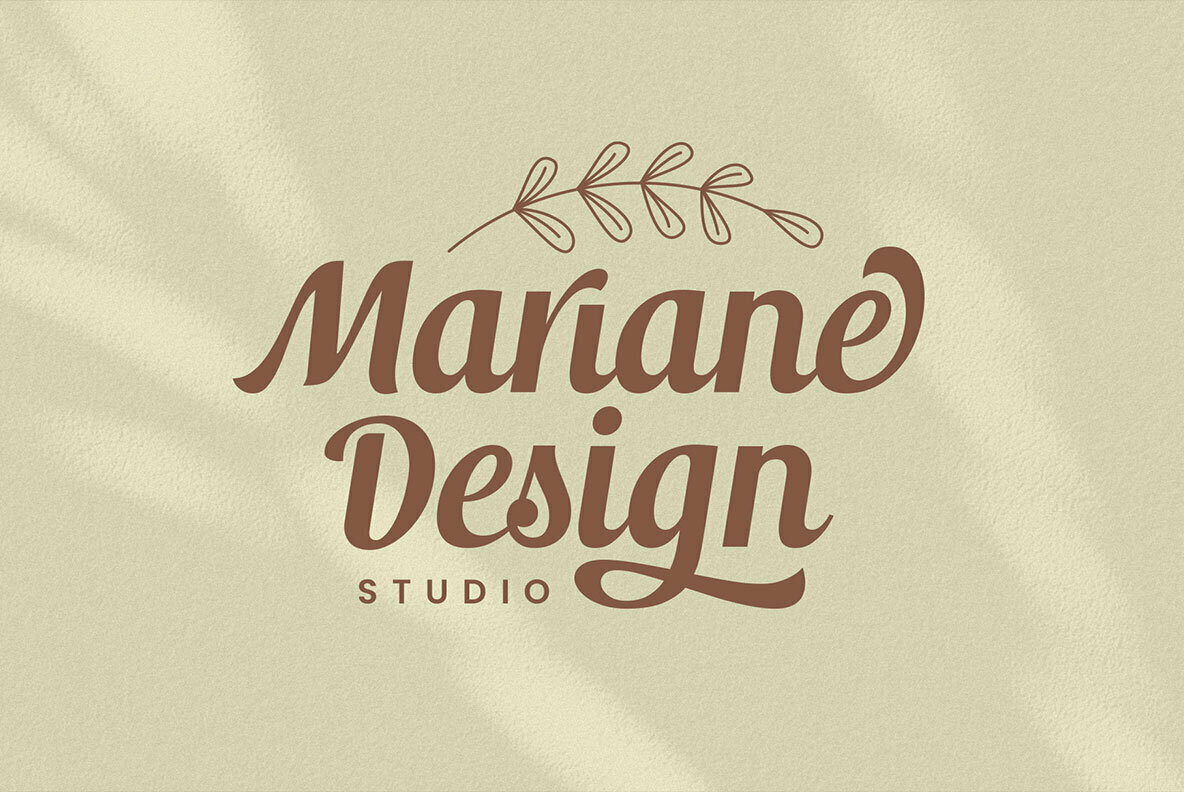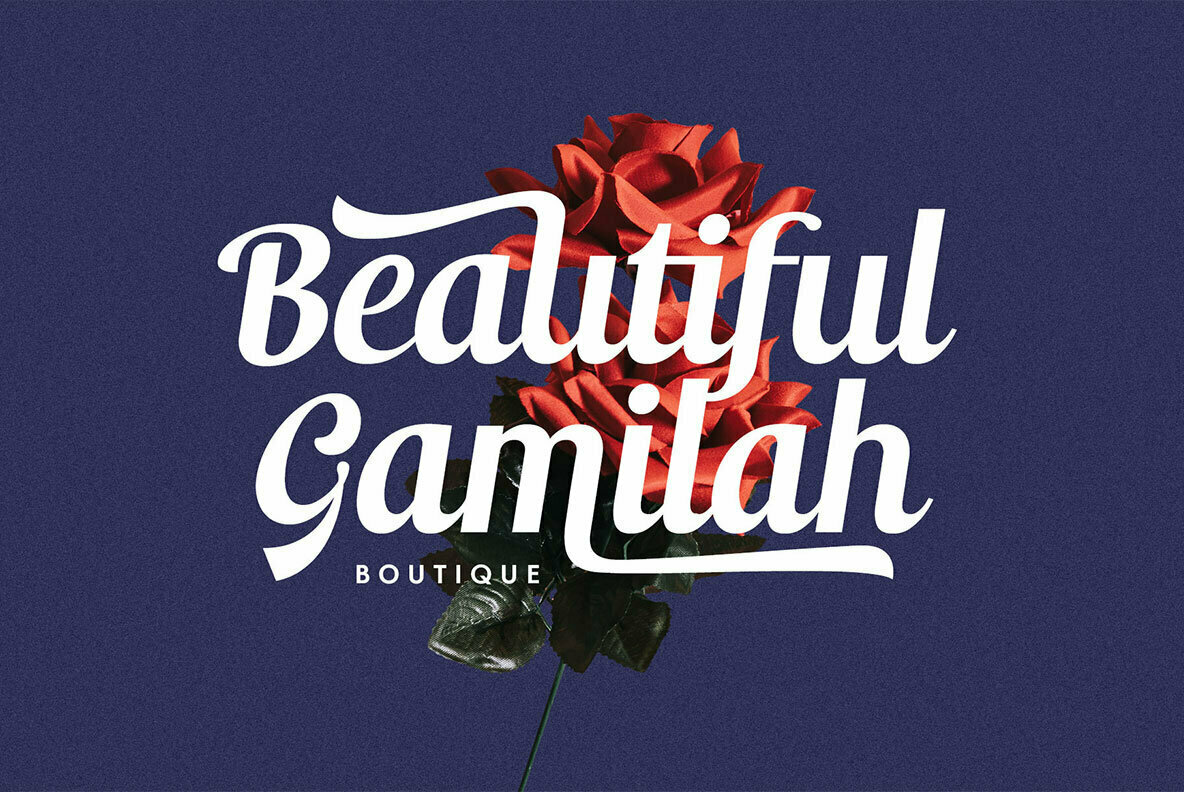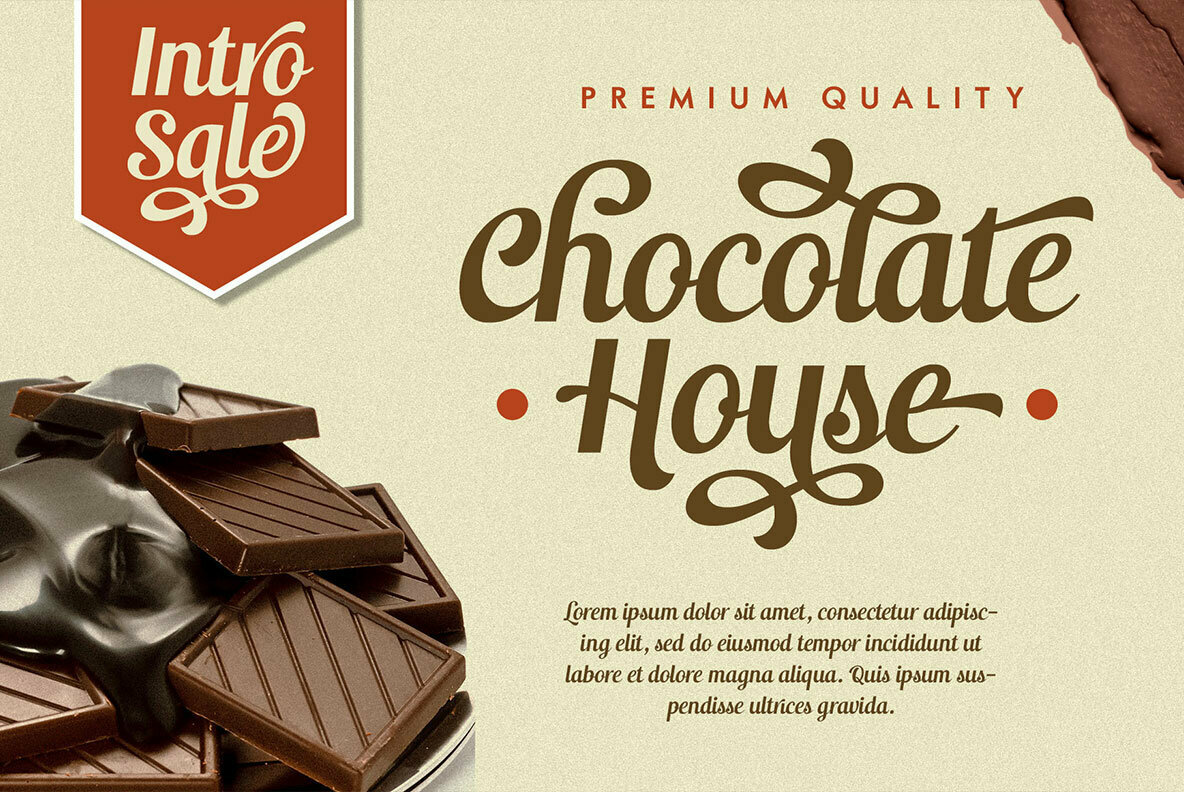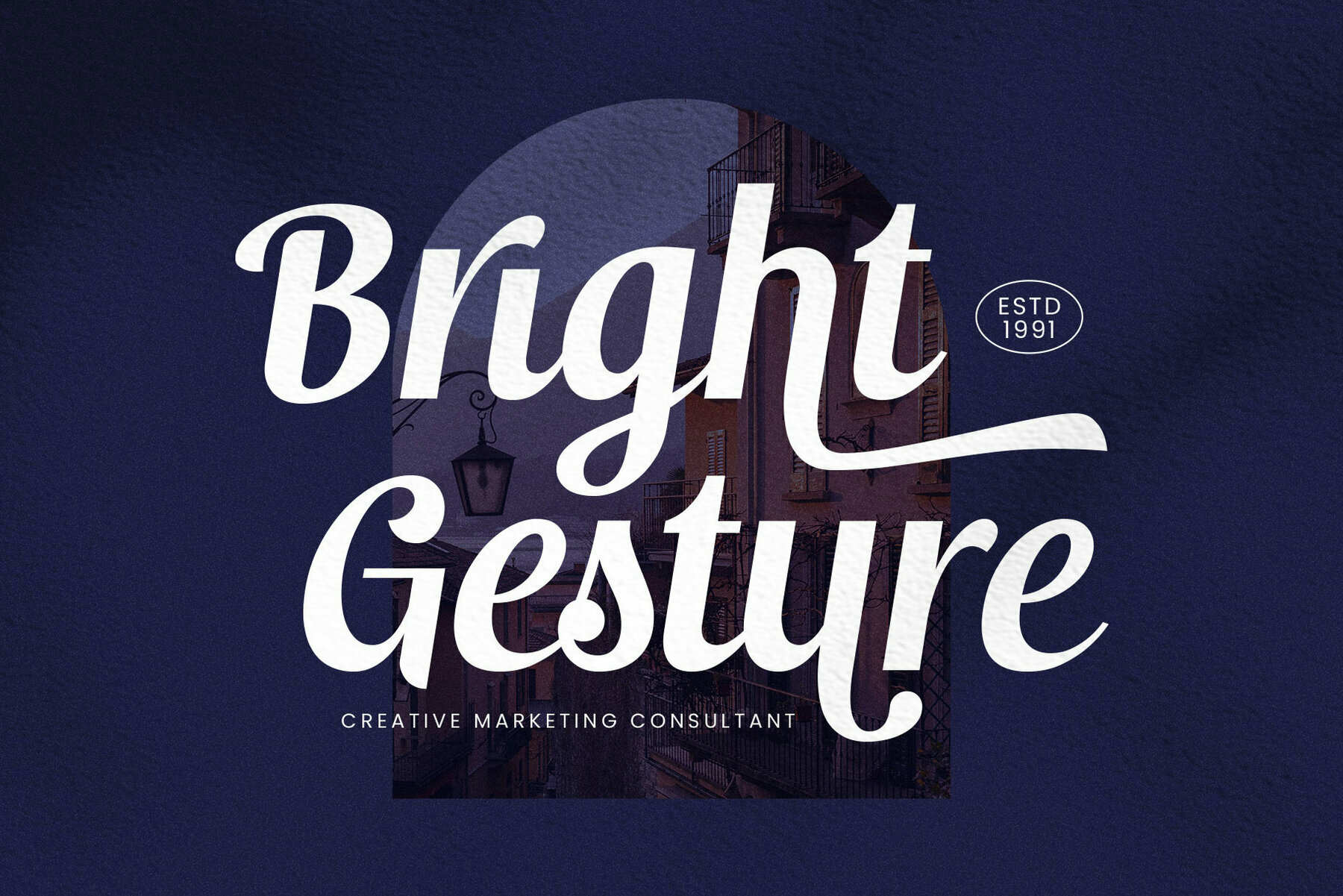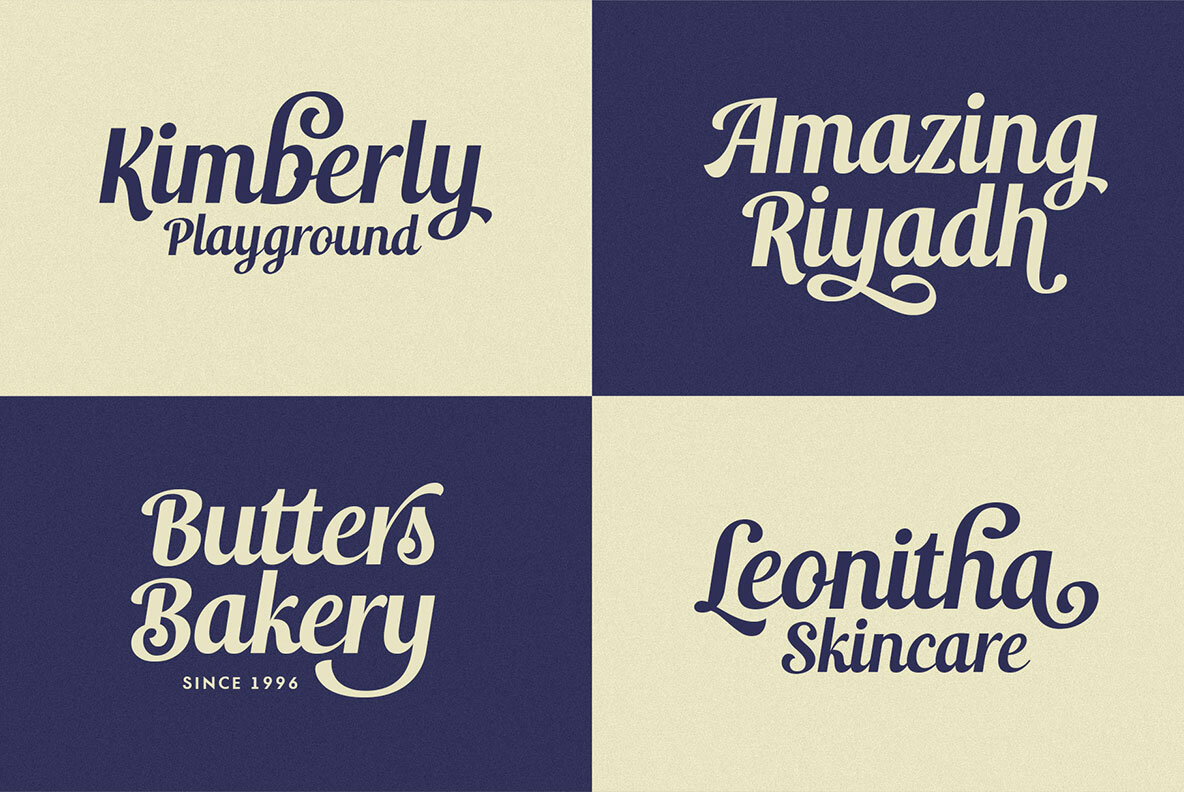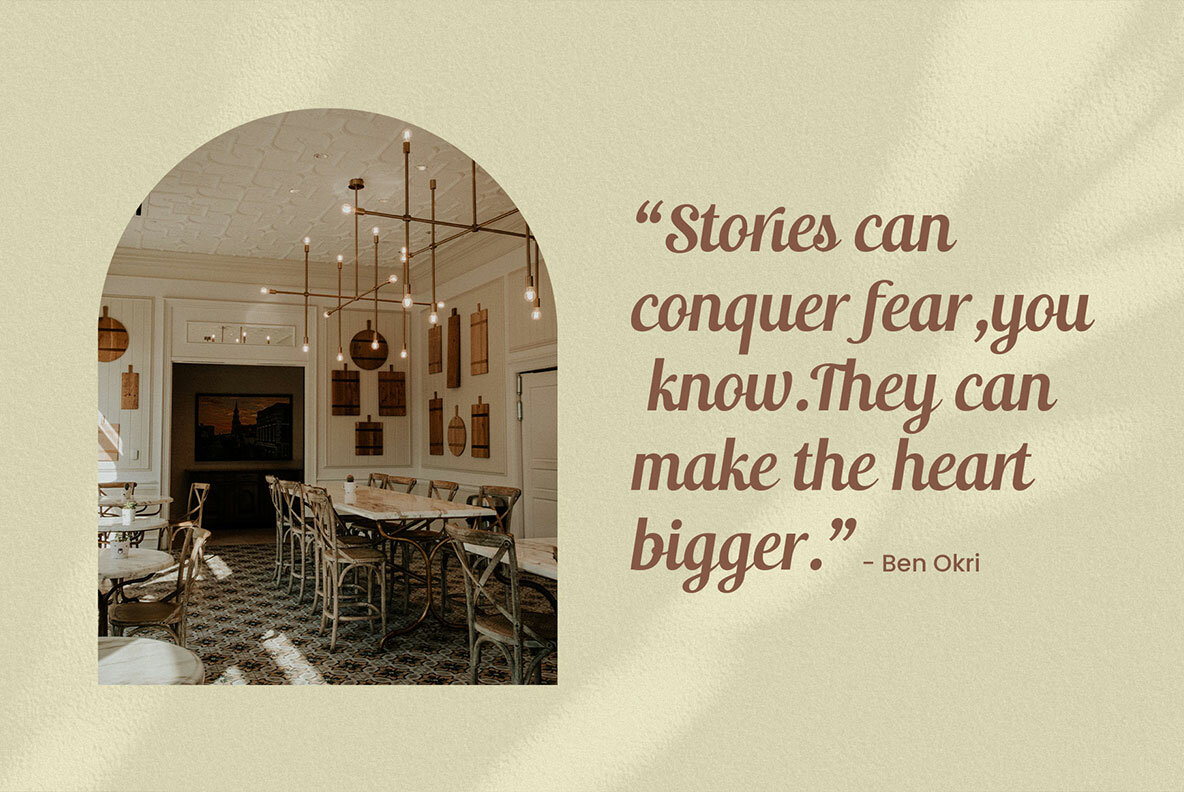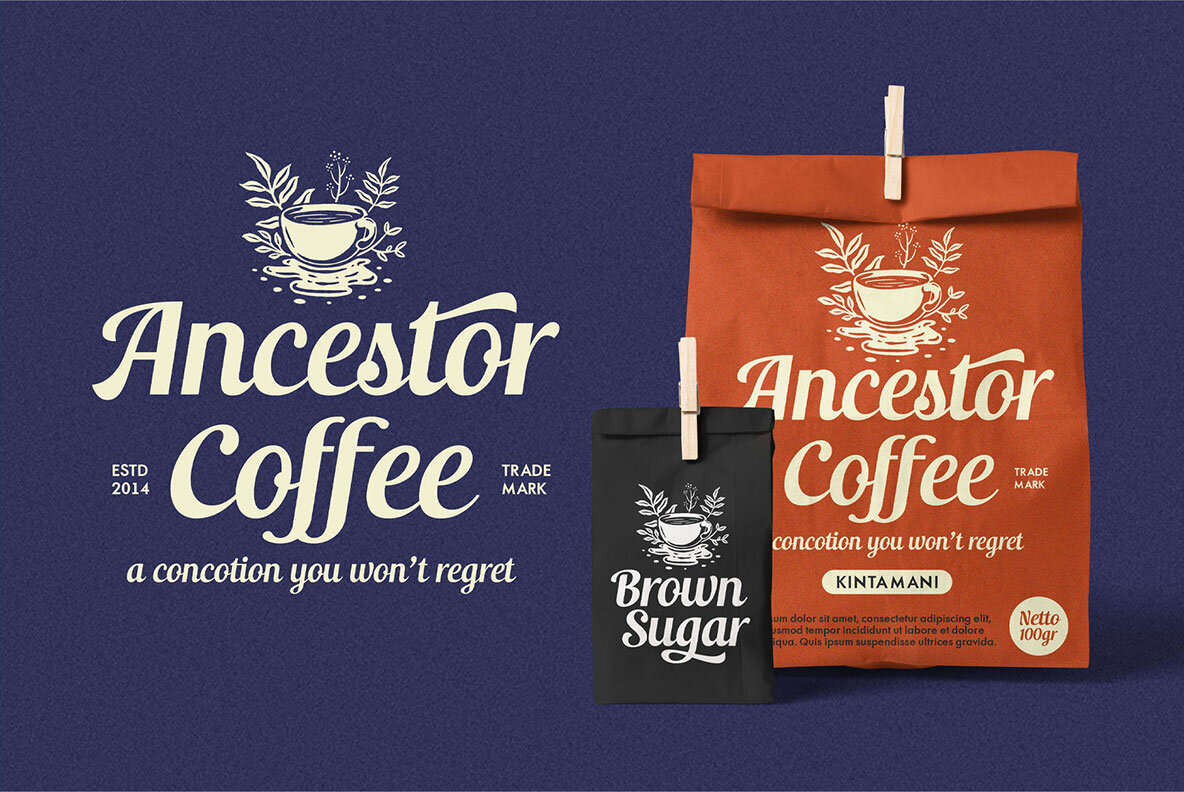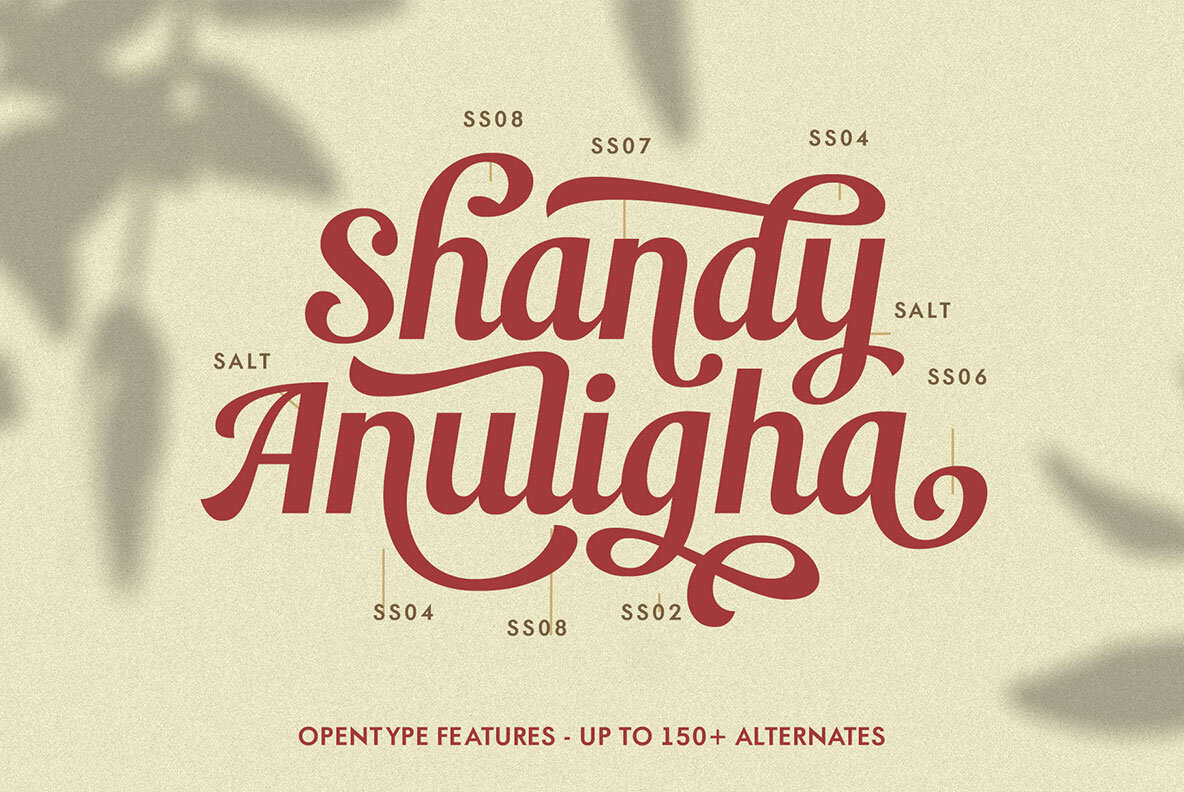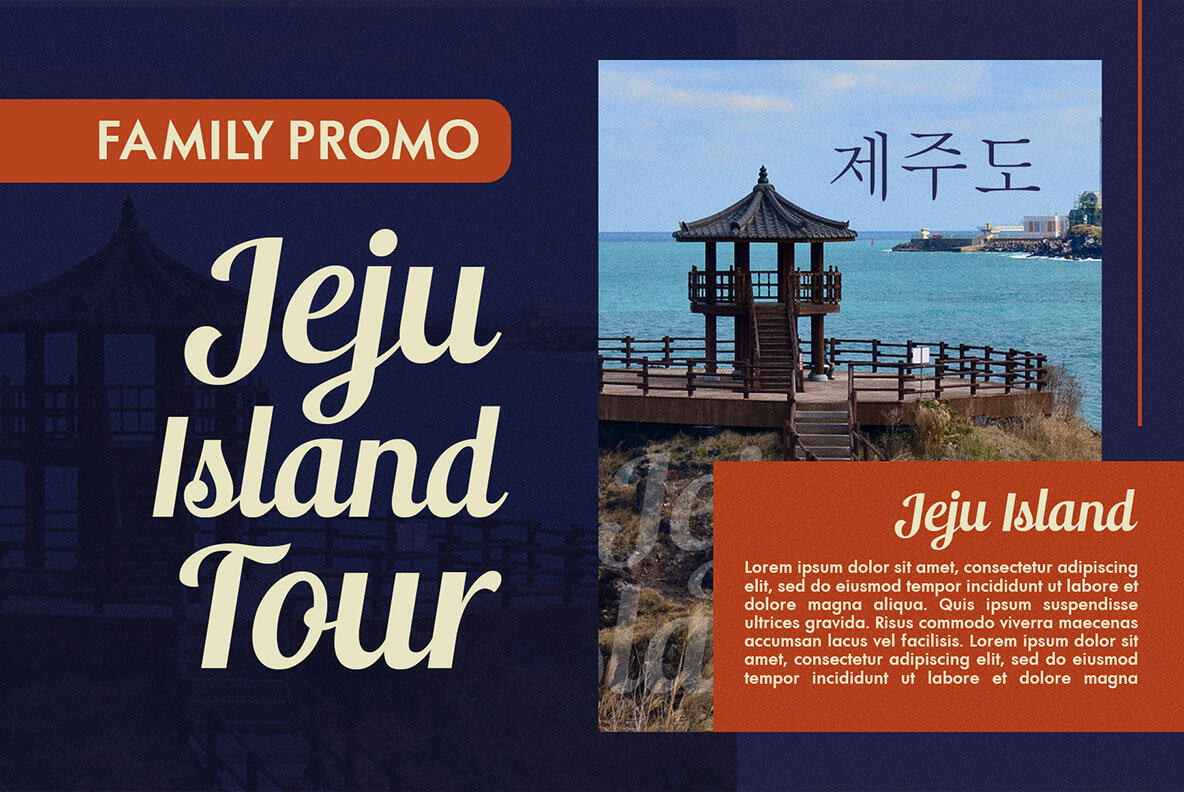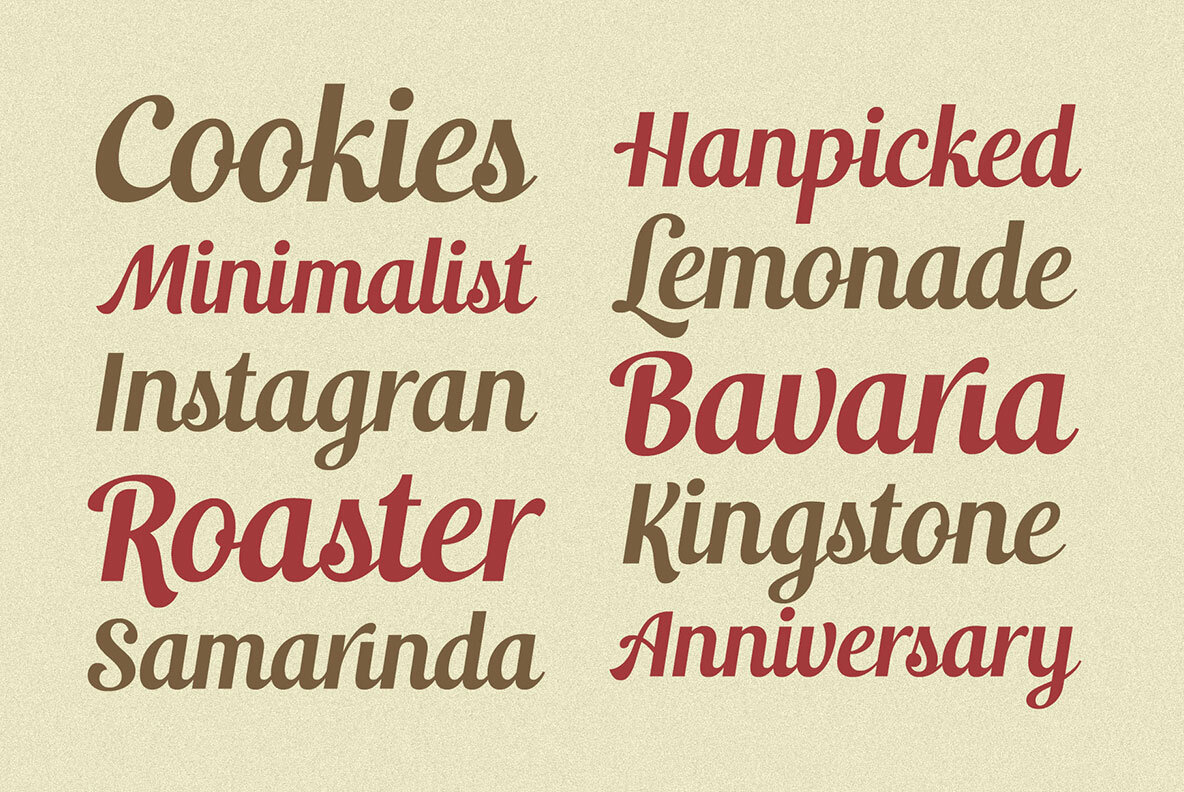
Introducing Andalia, the romantic script typeface, that is modern, casual, and elegant. Created with slanted strokes, and a clean ornament that gives the more dramatic movement of the swashes.
Andalia is ready to play with you. It comes with hundreds of alternates characters and some ligatures that you can mix and match. This font was created especially for food branding or advertising, and fashion.